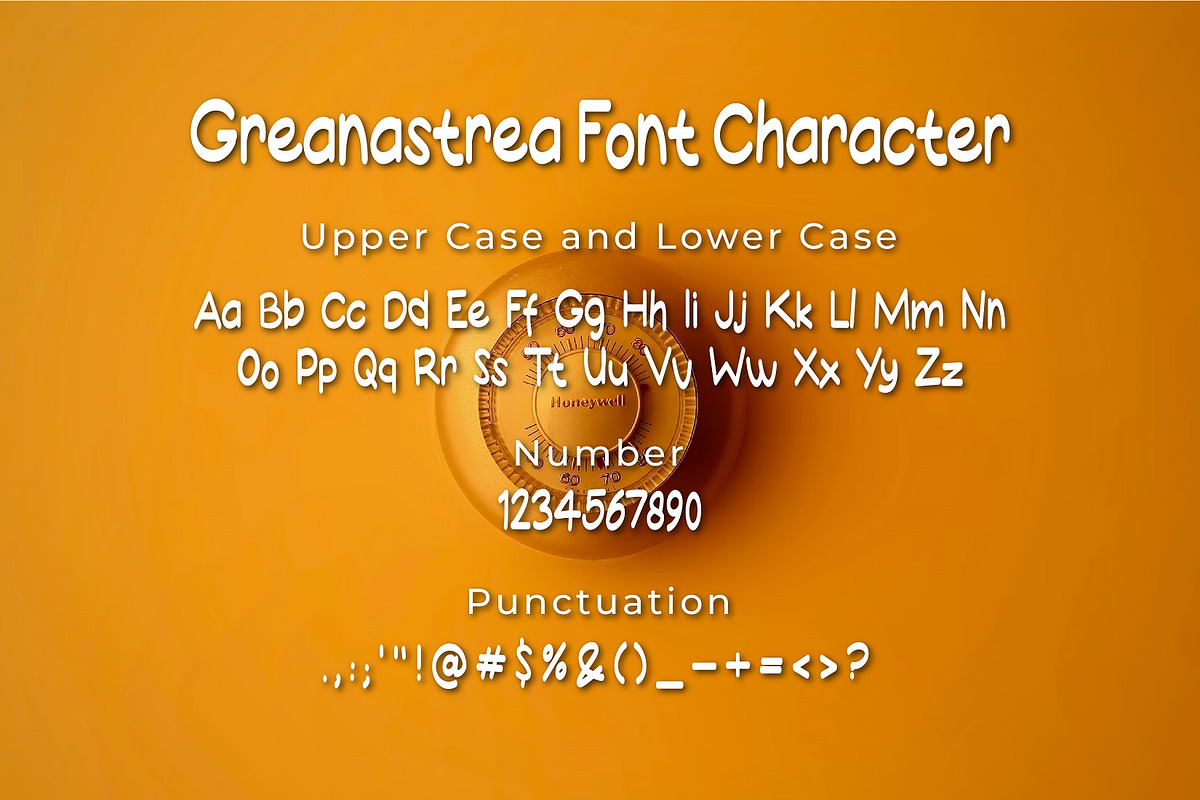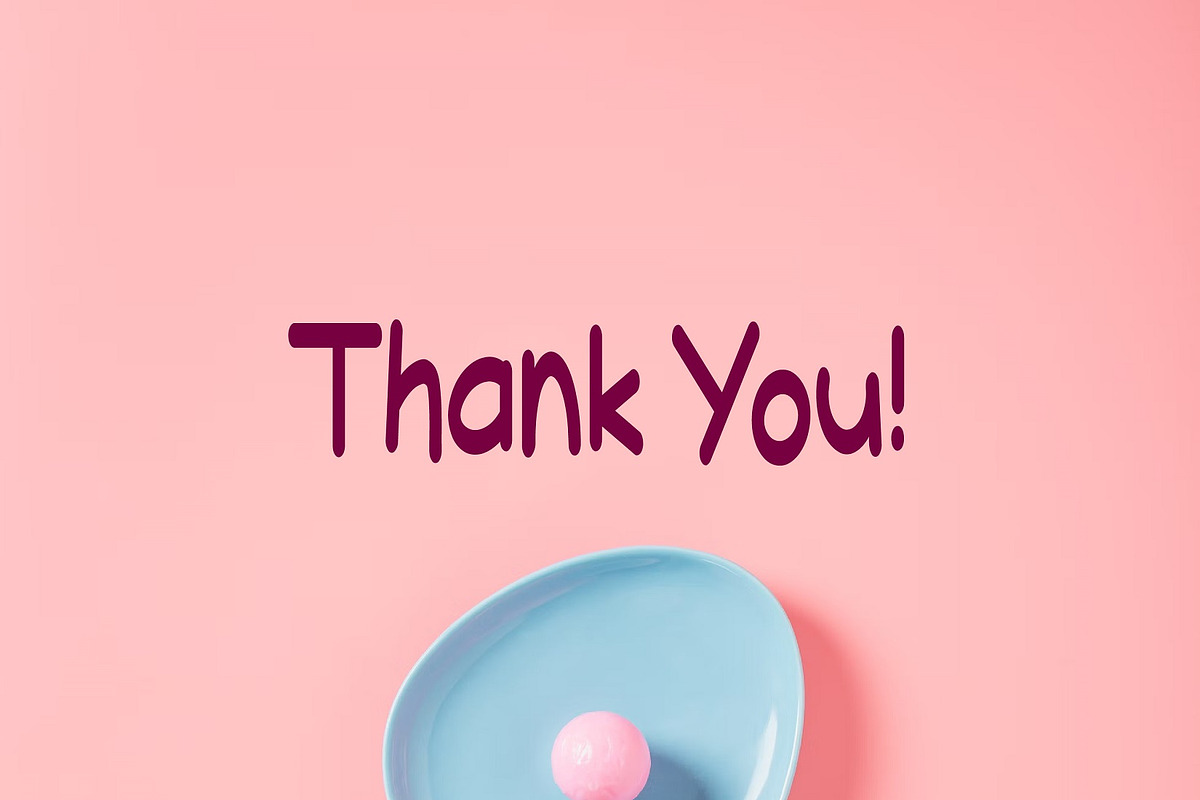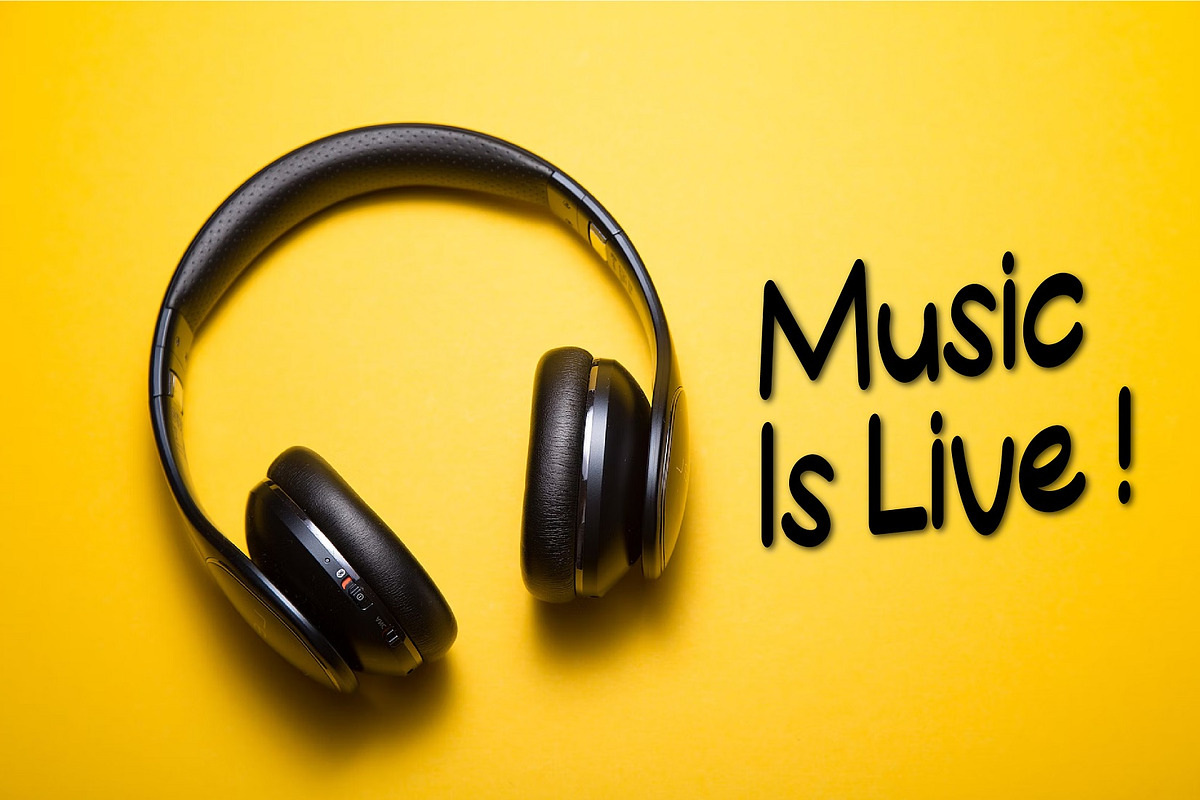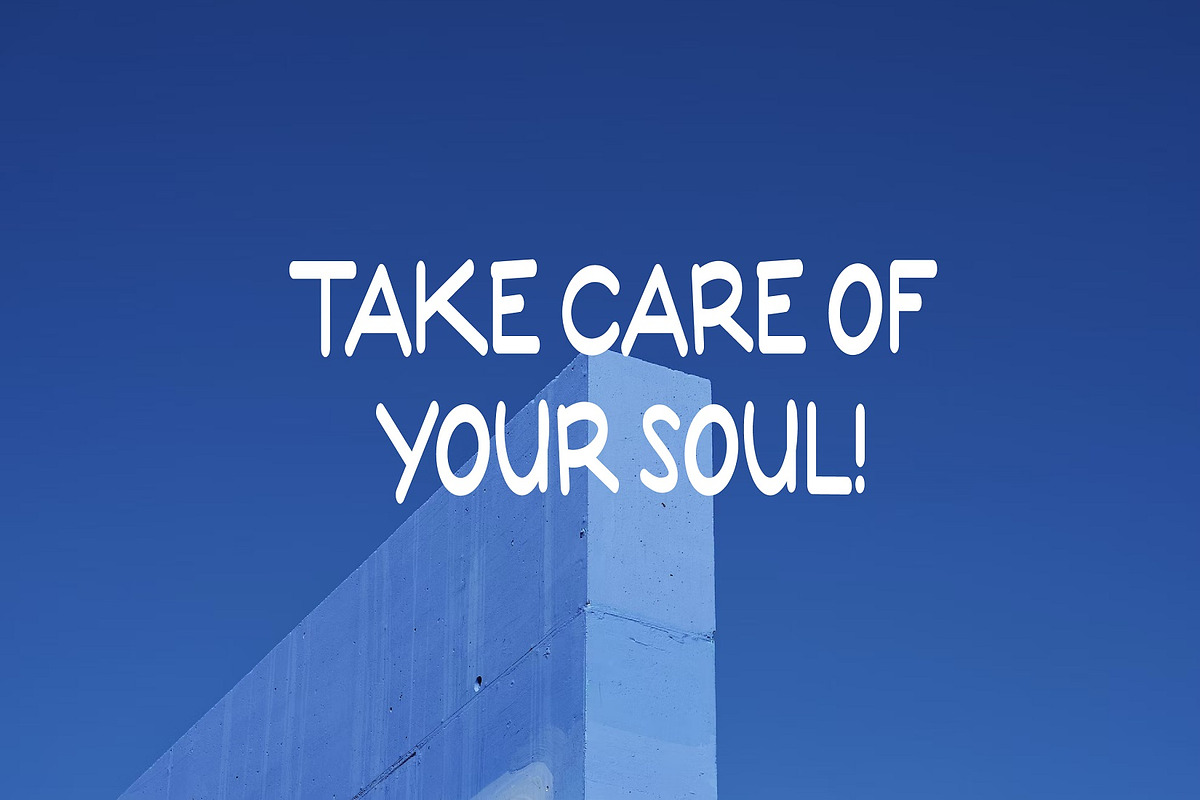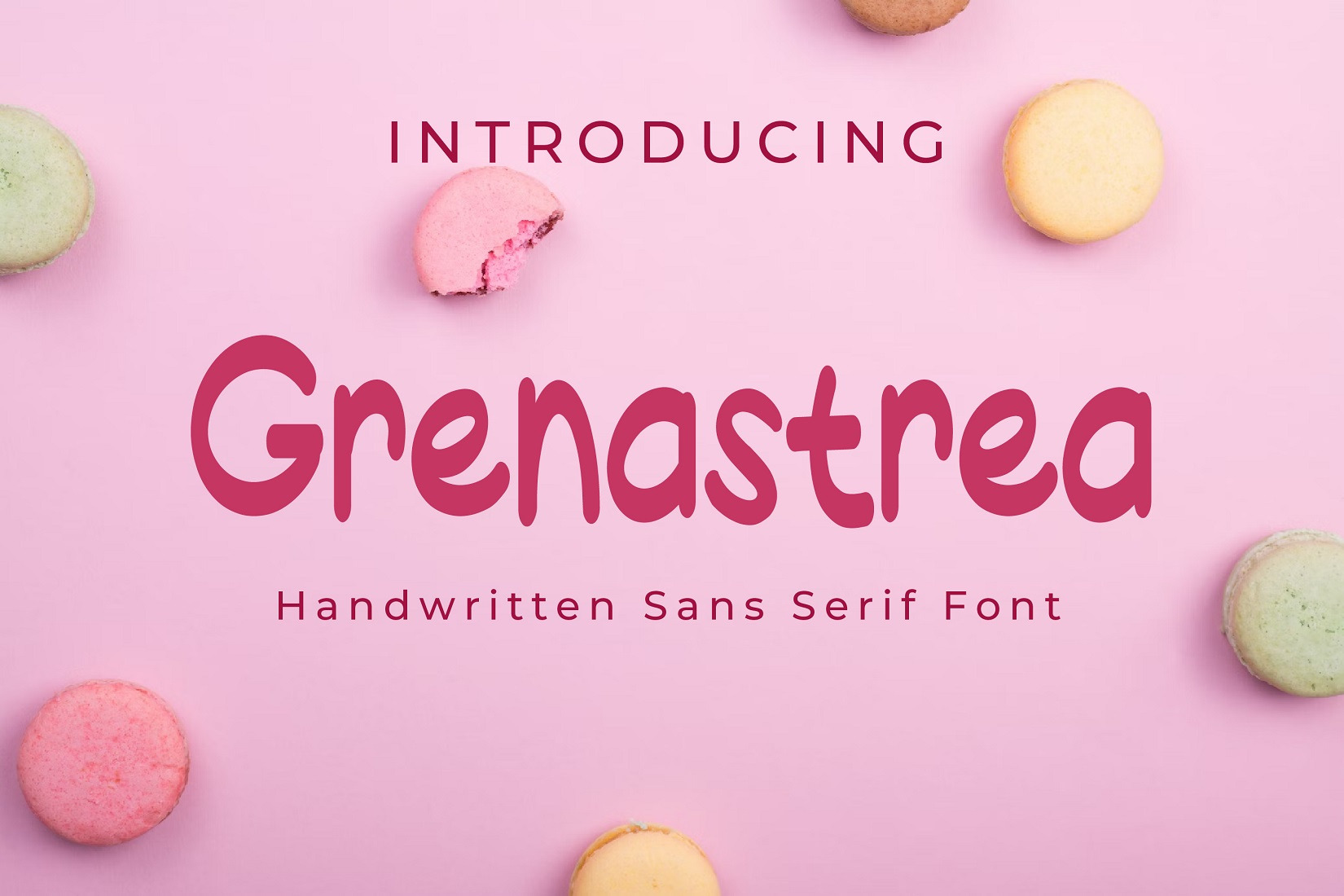
Grenastrea Sans Handwritten Font
Introducing Grenastrea - Sans Handwritten Font
Grenastrea is a sans handwritten font. Perfect for branding projects, logo, wedding designs, social media posts, advertisements, product packaging, product designs, label, photography, watermark, invitation, stationery and any projects that need handwriting taste.